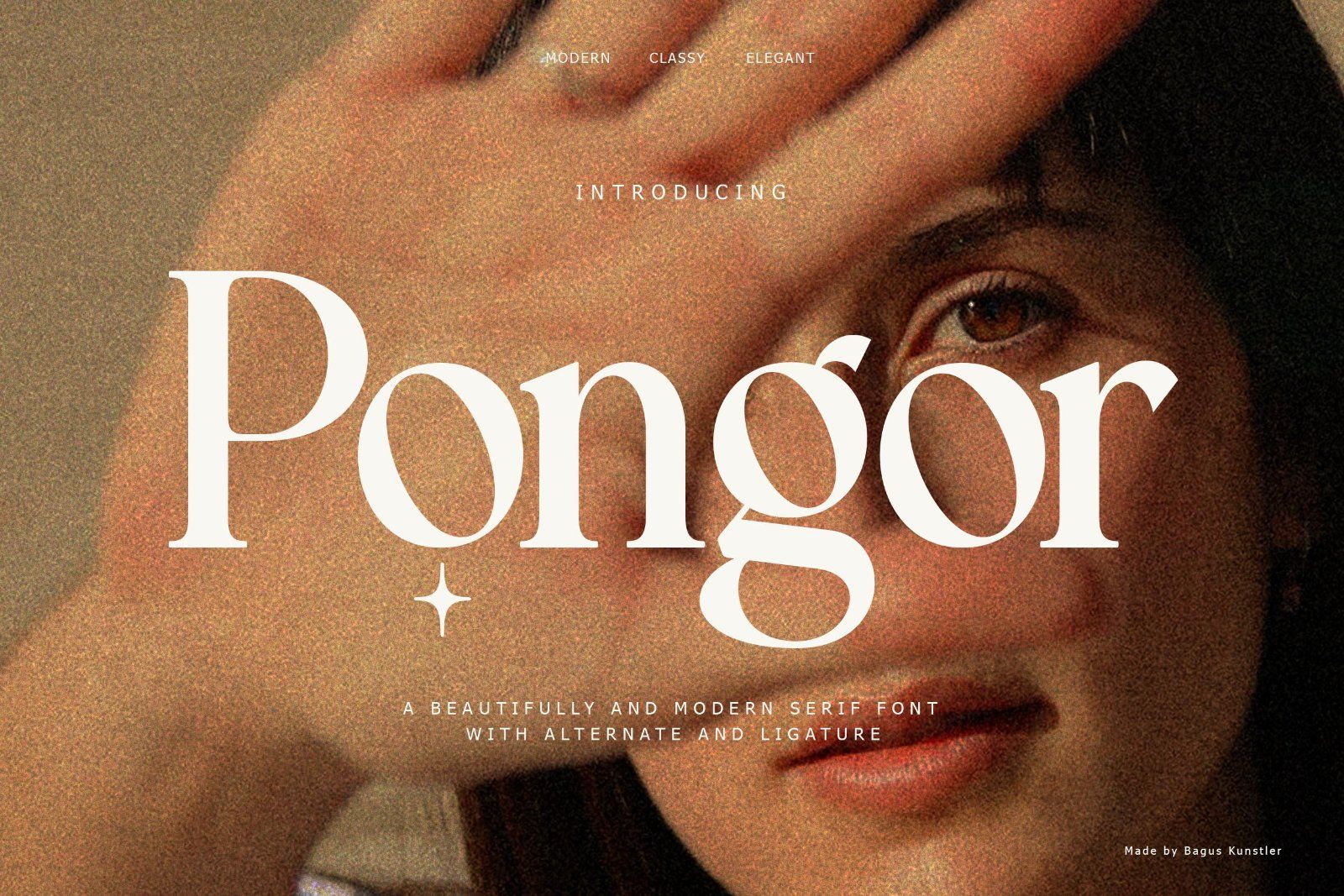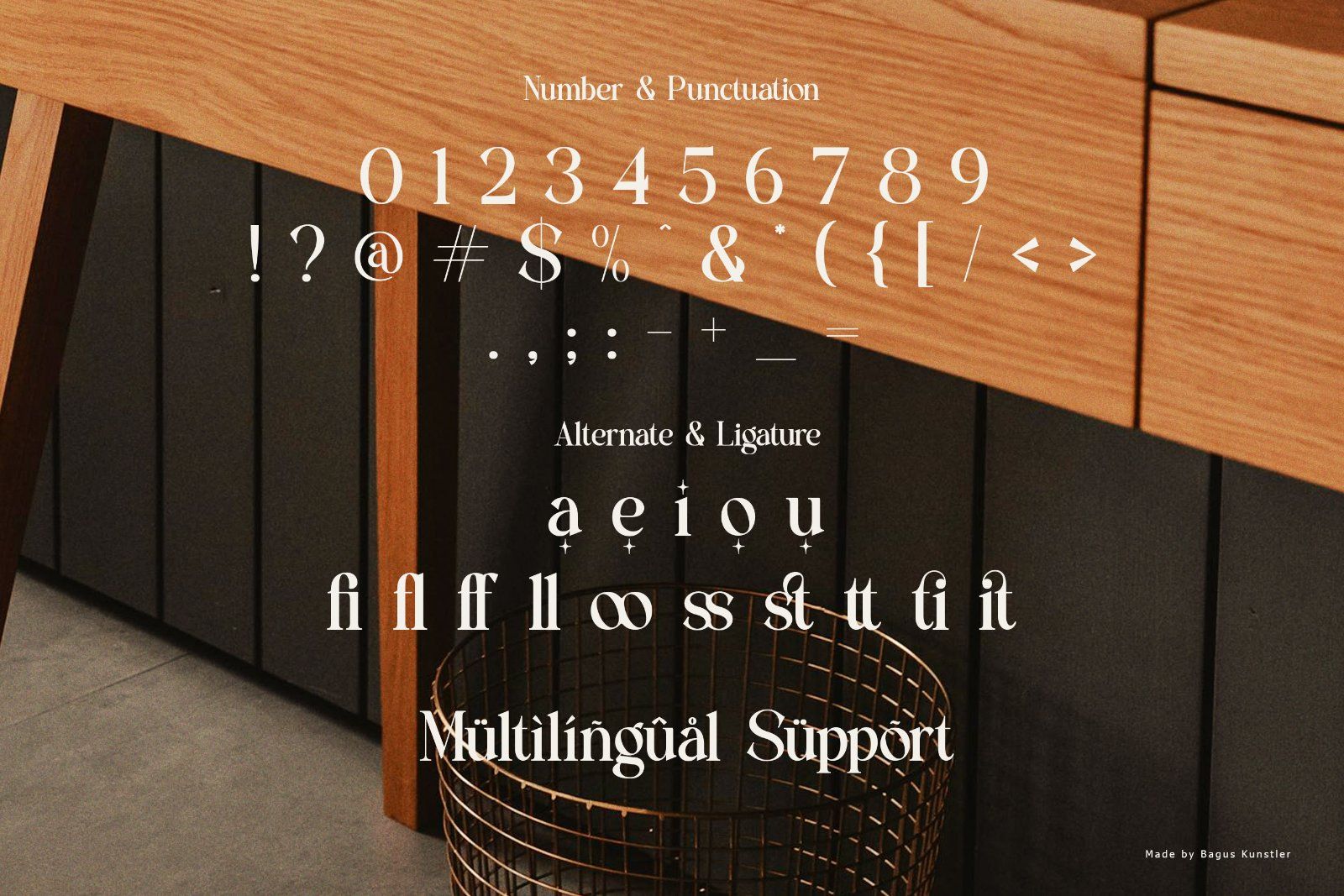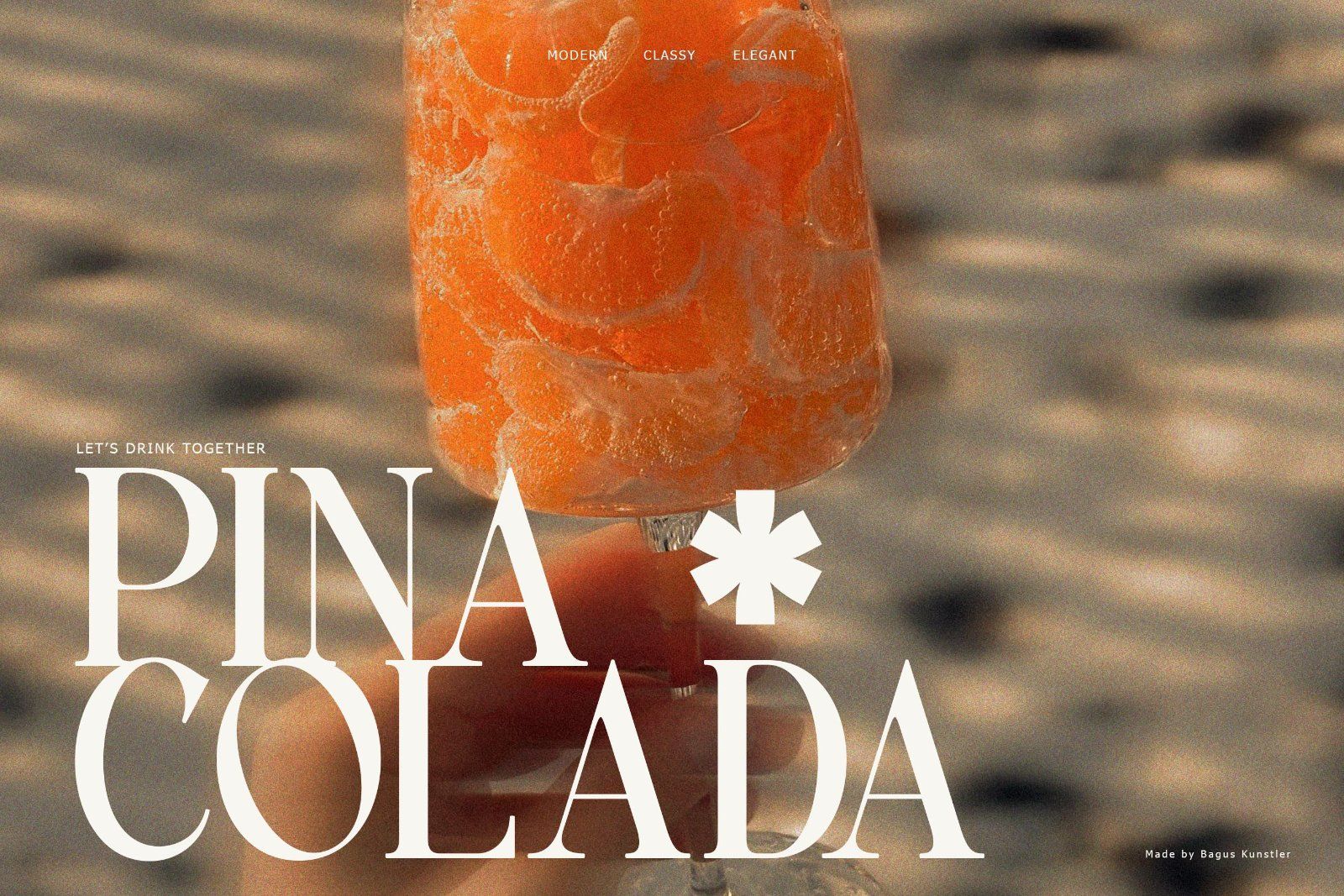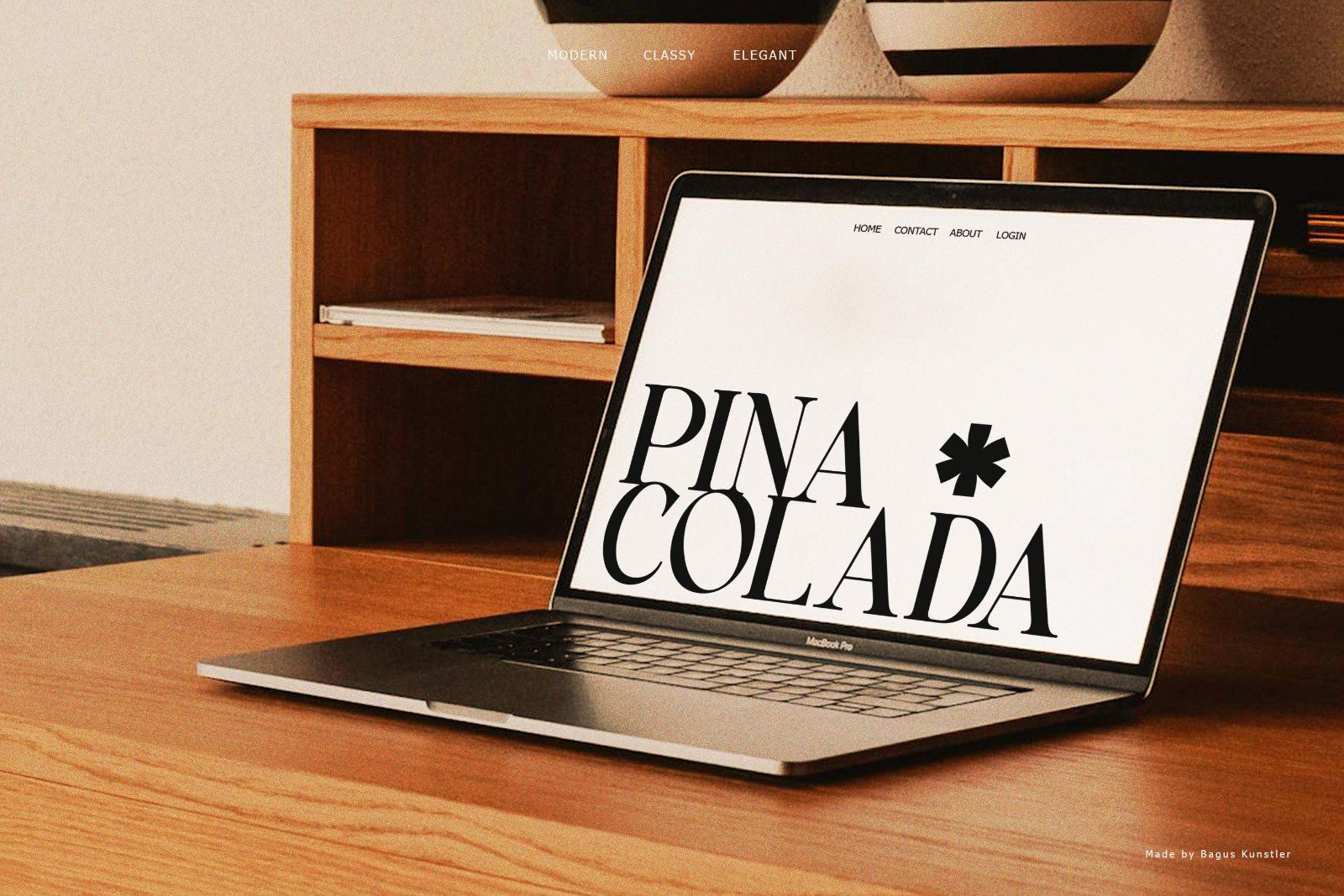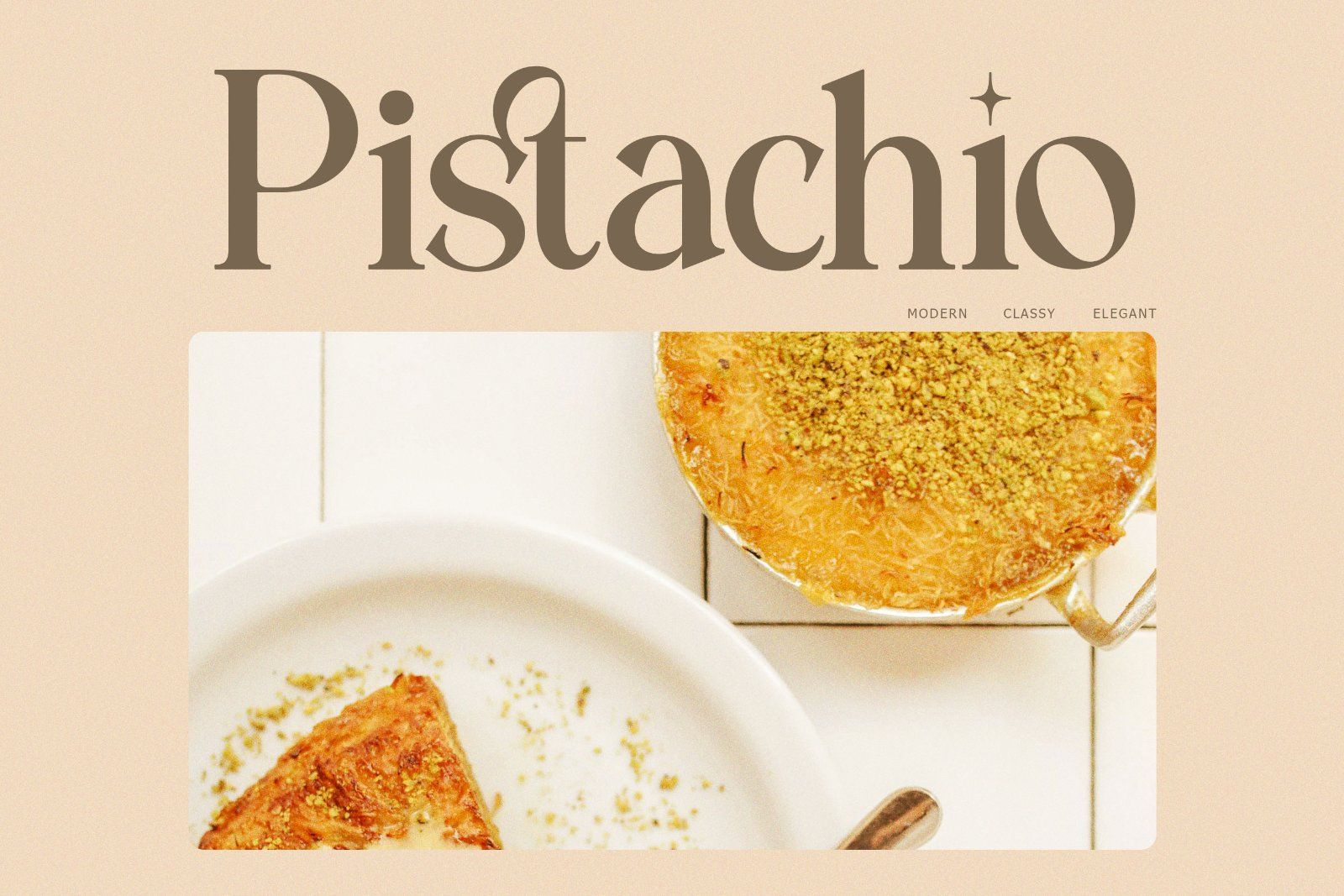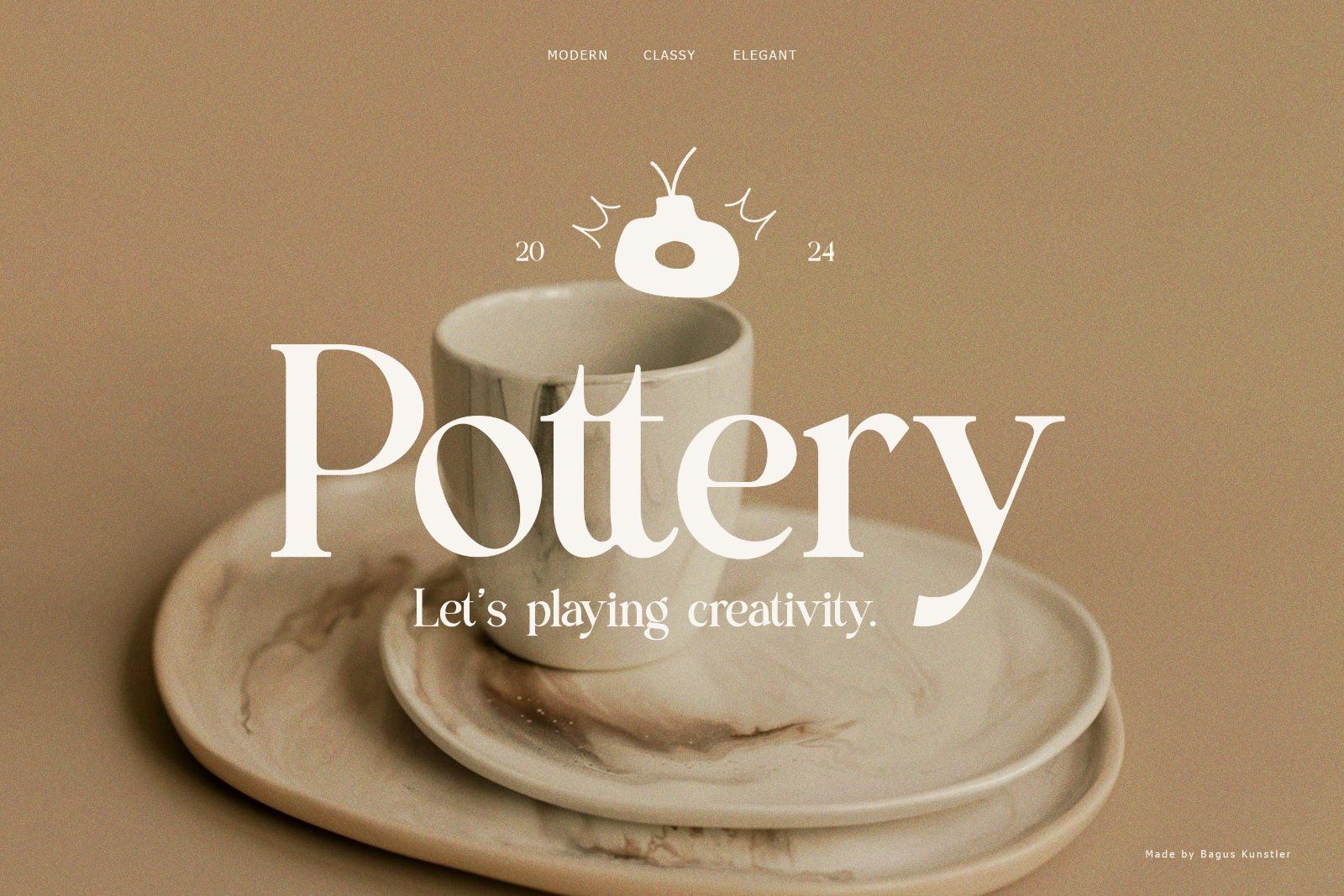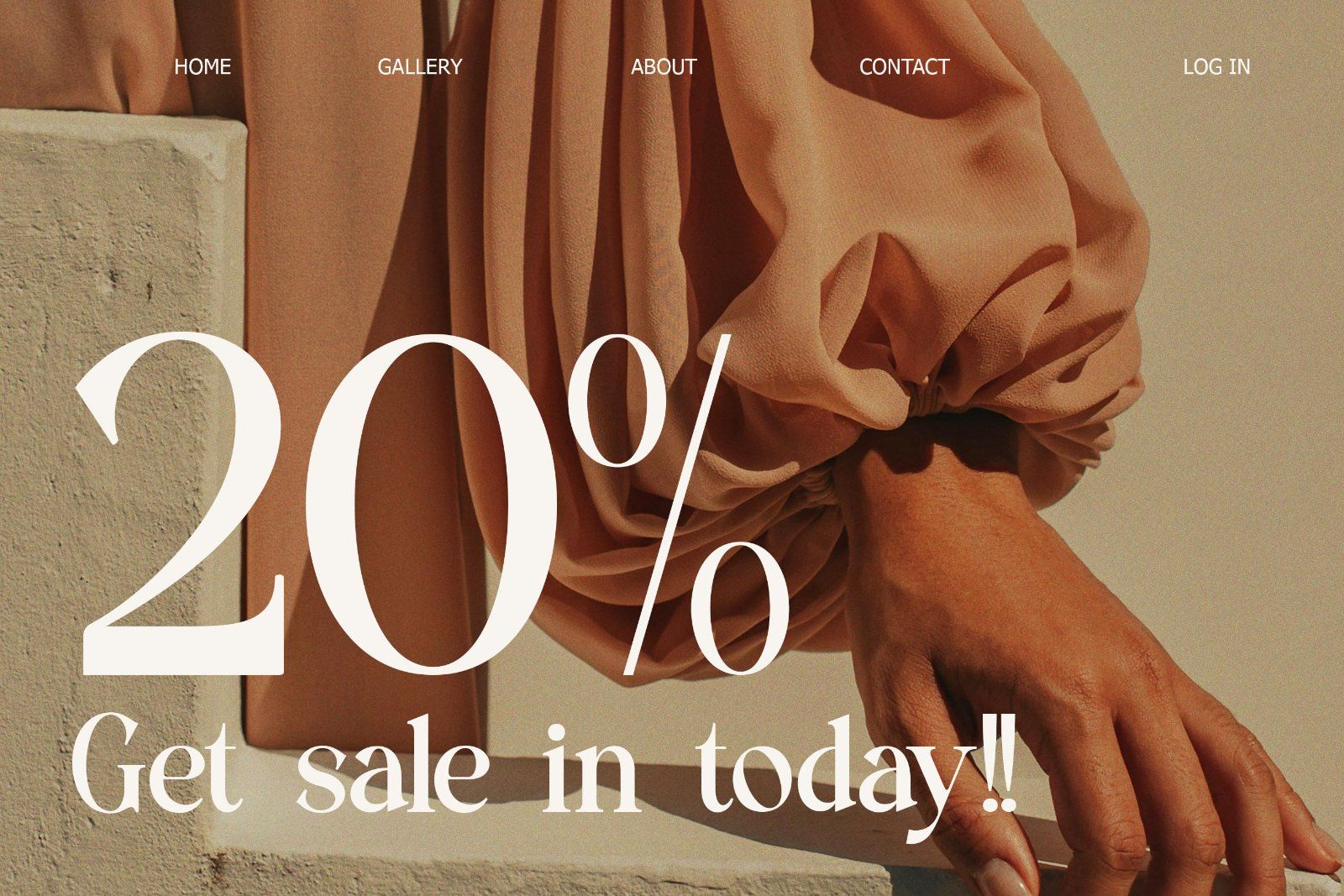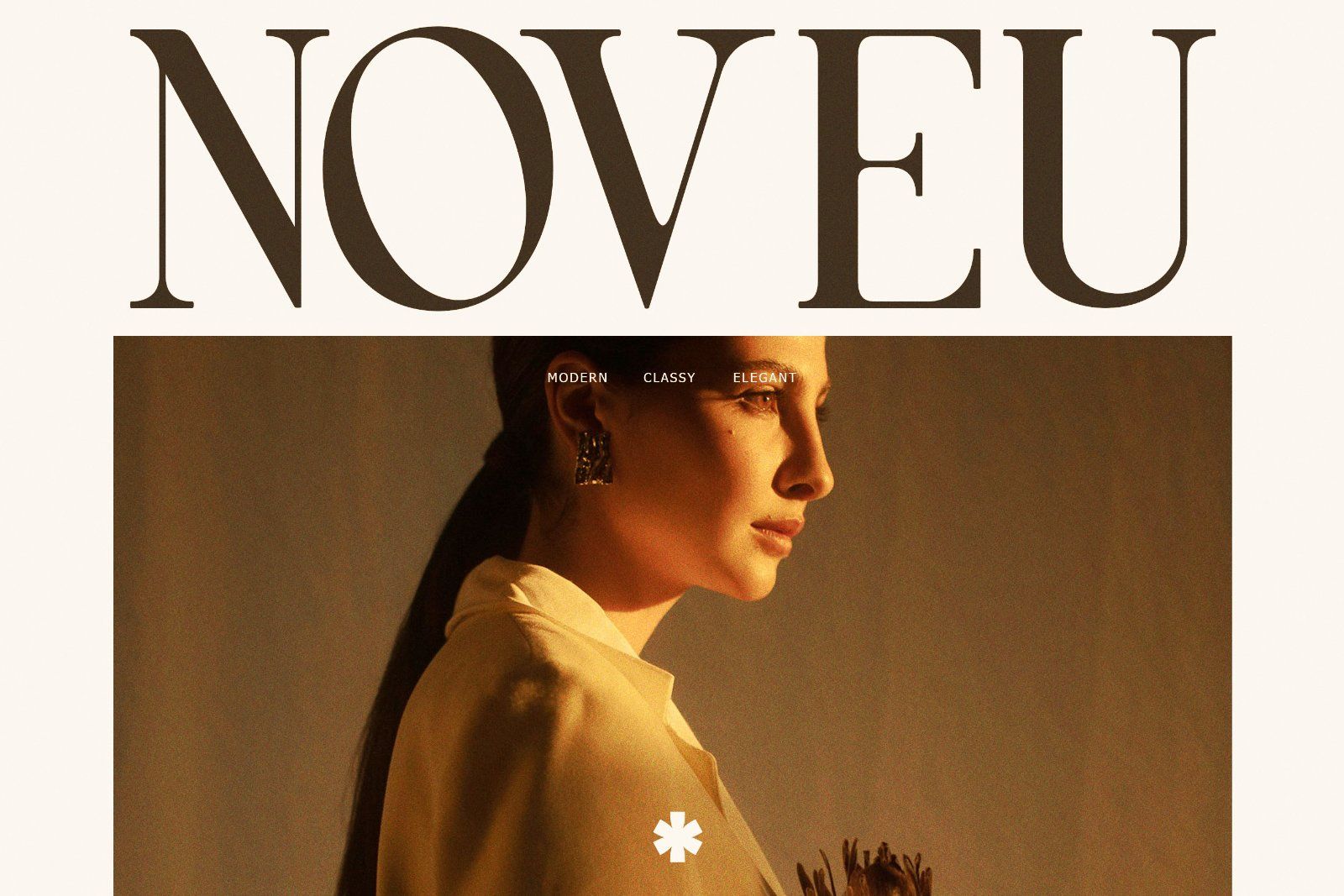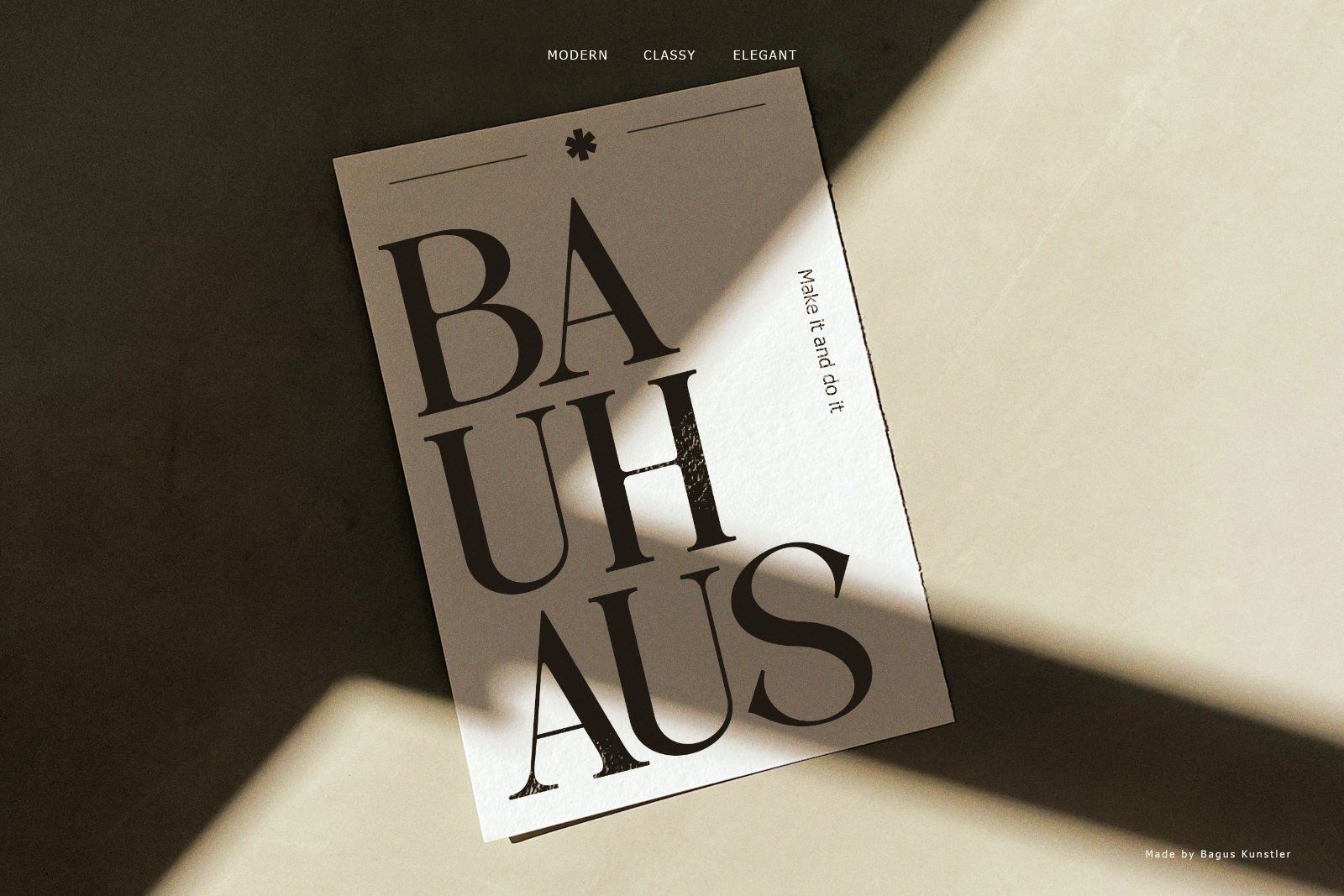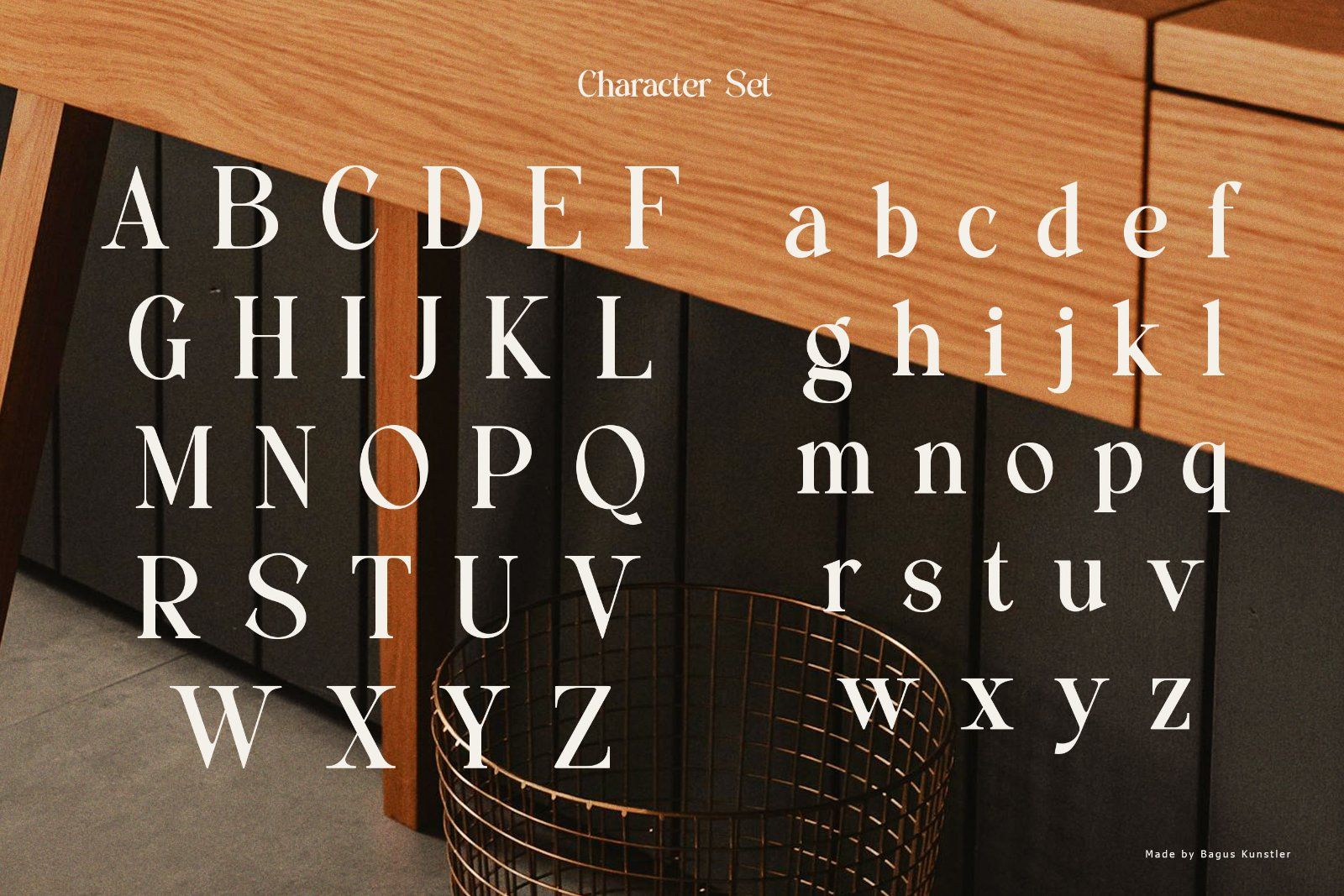
Pongor, a typeface serif retro elegance. This stylized font elegant is perfect for text and the font that is very firm but dynamic. This can be more expressive and modern font that look premium for various design required. There shall be a unique font if you use this to project your design which is furnished with alternate and ligature.
Pongor available with:
• Uppercase
• Lowercase
• Number & Punctuation
• Stylistic Alternate & Ligature